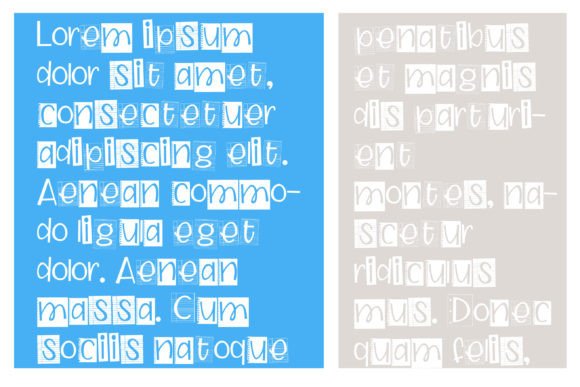
Teacher Note is a fun and casual handwritten display font. Whether you’re looking to add some pizzazz to notes or some sass to school books, this versatile font will do the trick.
Teacher Note Font